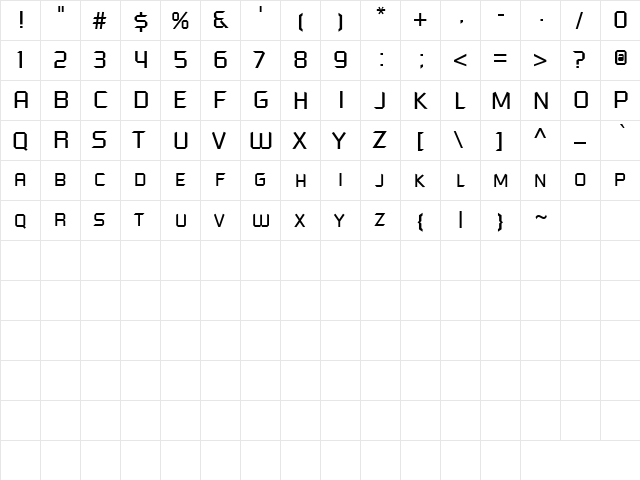
Futured Modern
Design Context for Futured Typeface
Futured has a distinctly futuristic character, with geometric precision and clean angles that feel at home in technology, gaming, and sci-fi contexts.
Pro Tip: Try Futured with generous letter-spacing in UI labels and navigation — the geometric forms benefit from room to breathe.